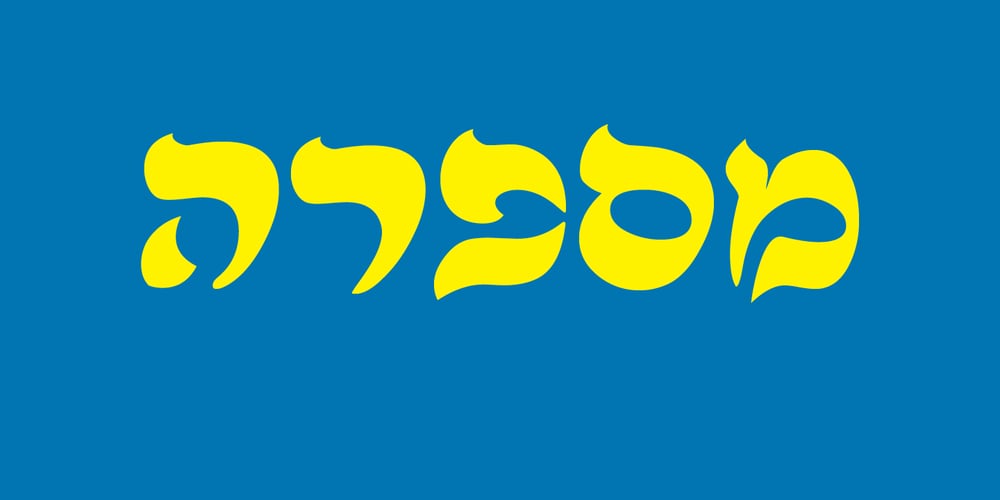
Lehavot MF Font Family was designed by Omer Peleg and published by Masterfont. Lehavot MF contains 1 styles and family package options. Here is you next choice of the desired romantic greeting font you were looking for.